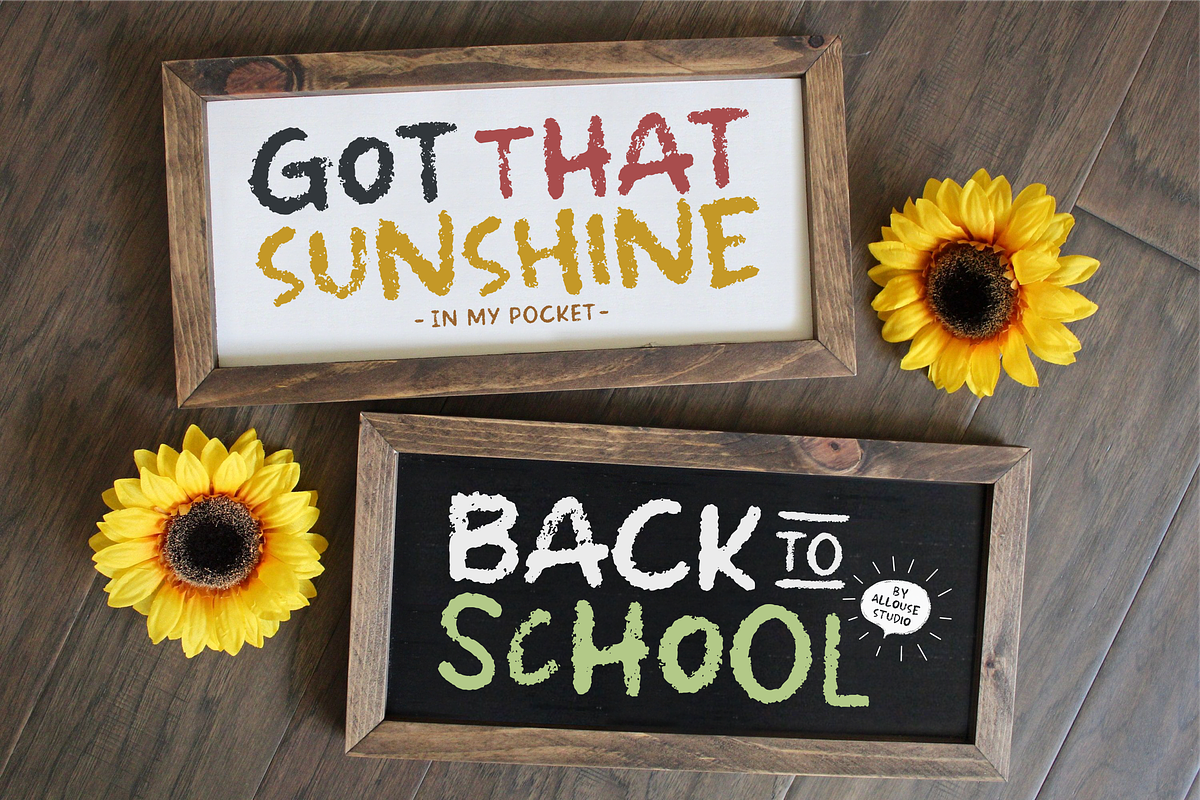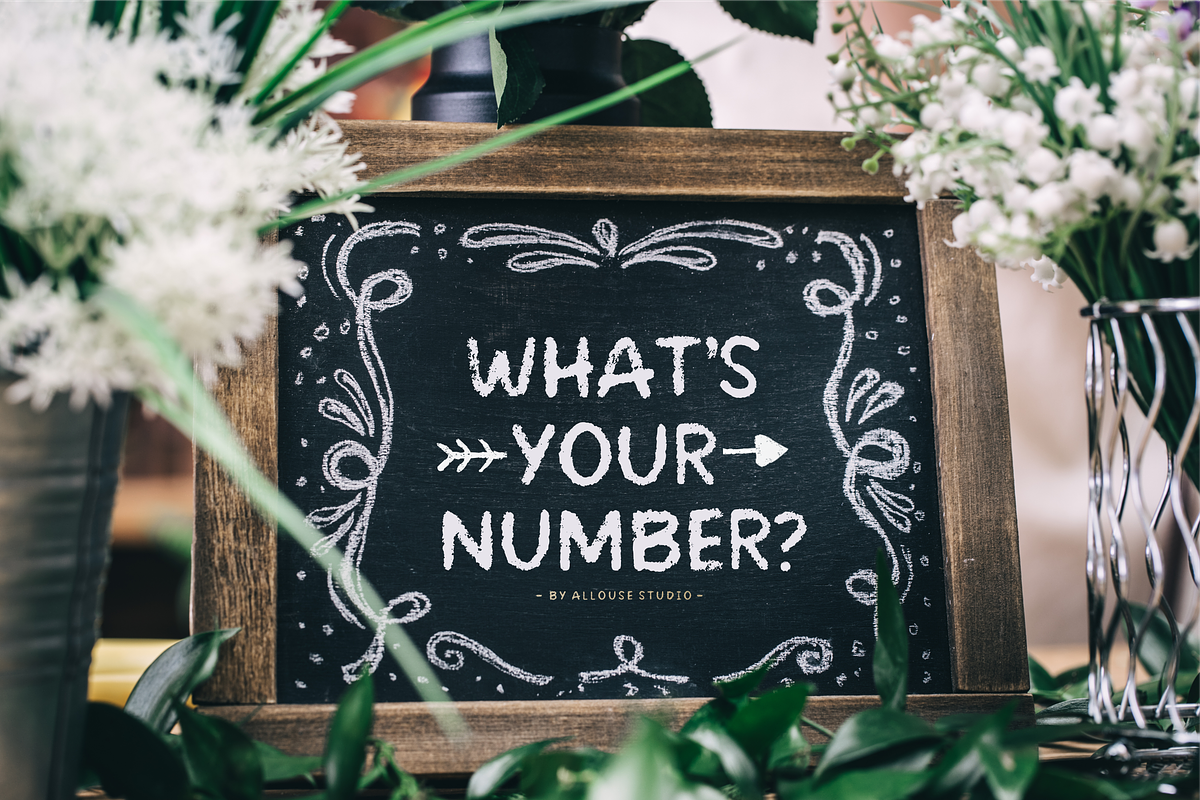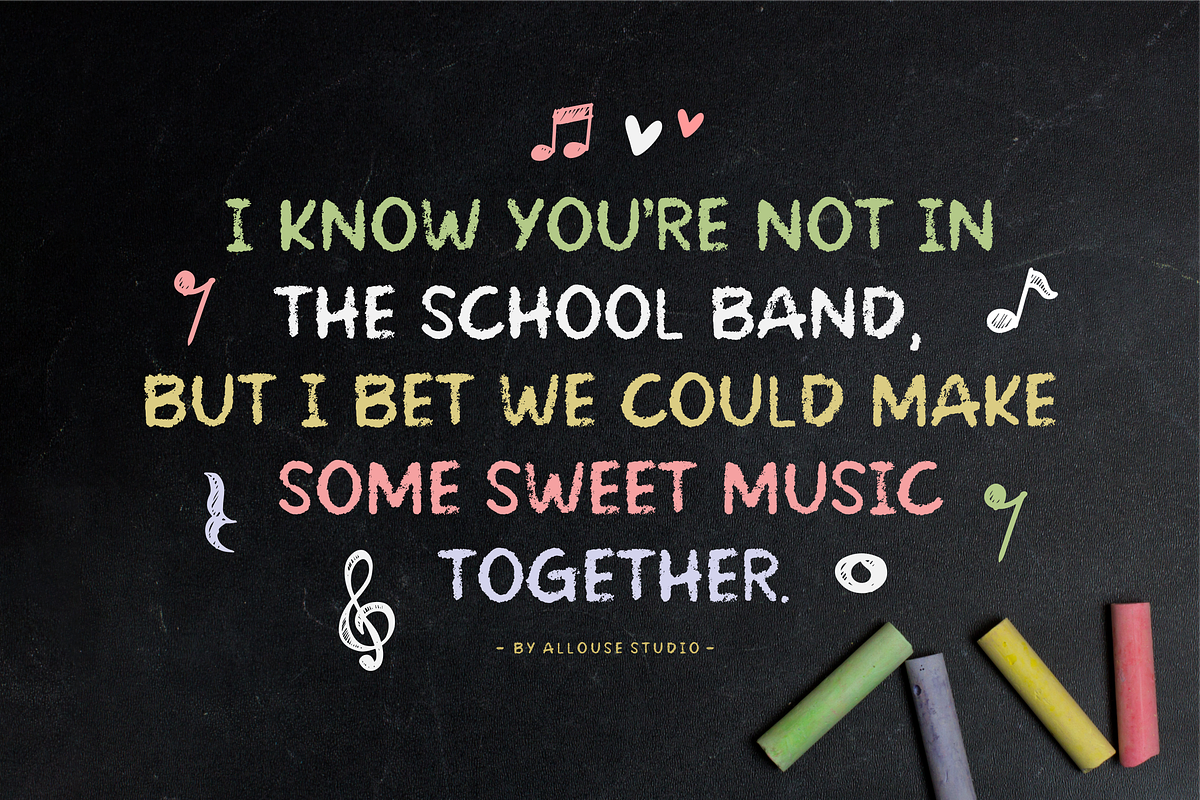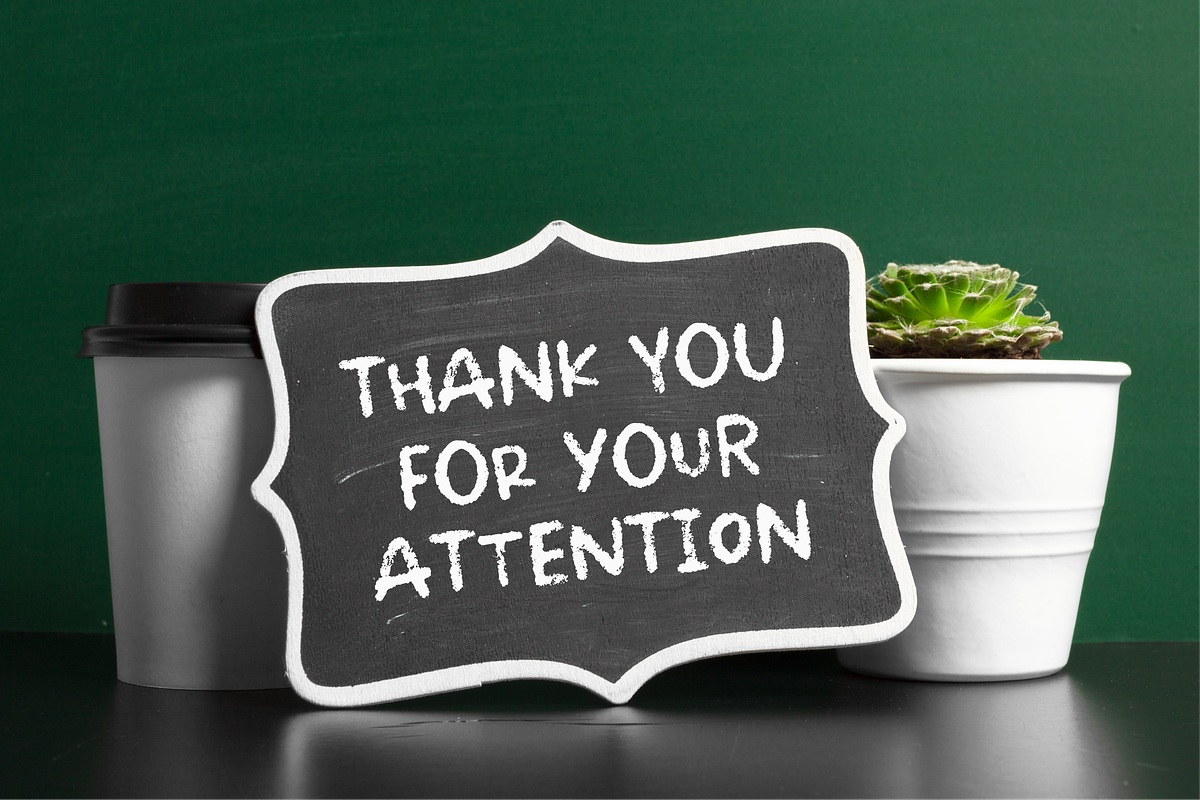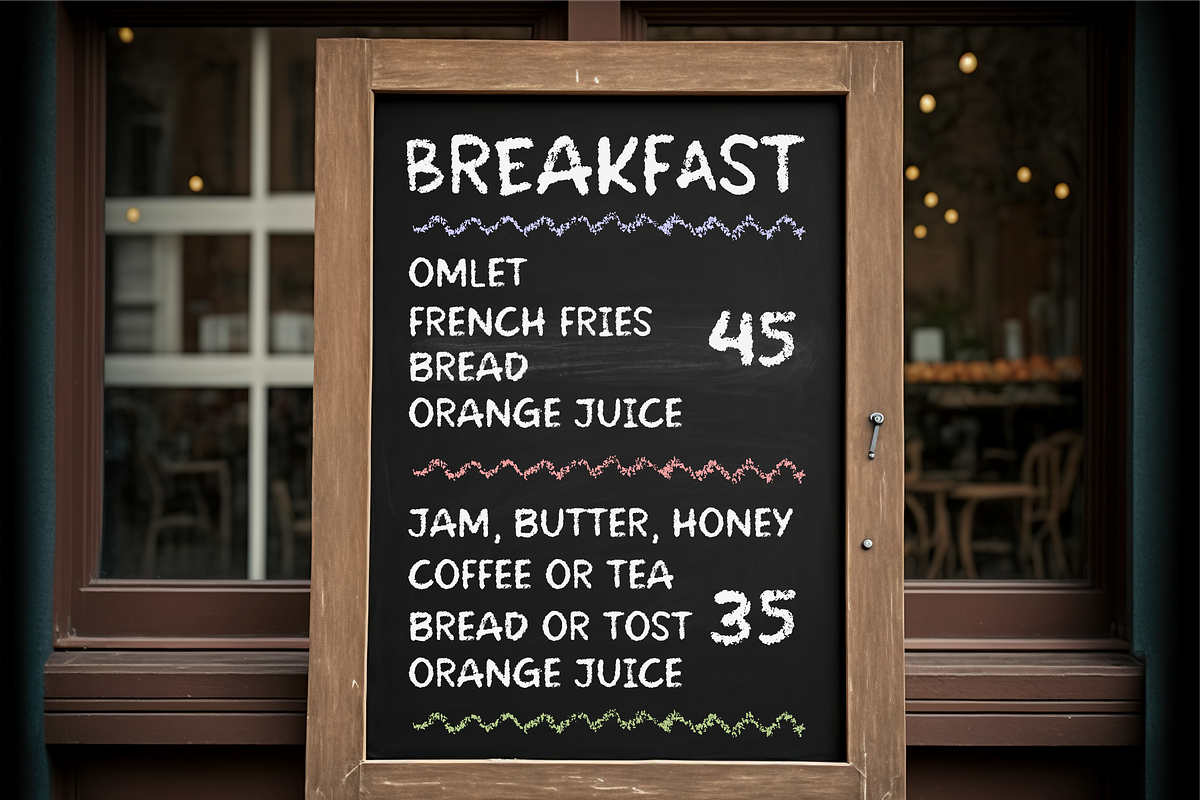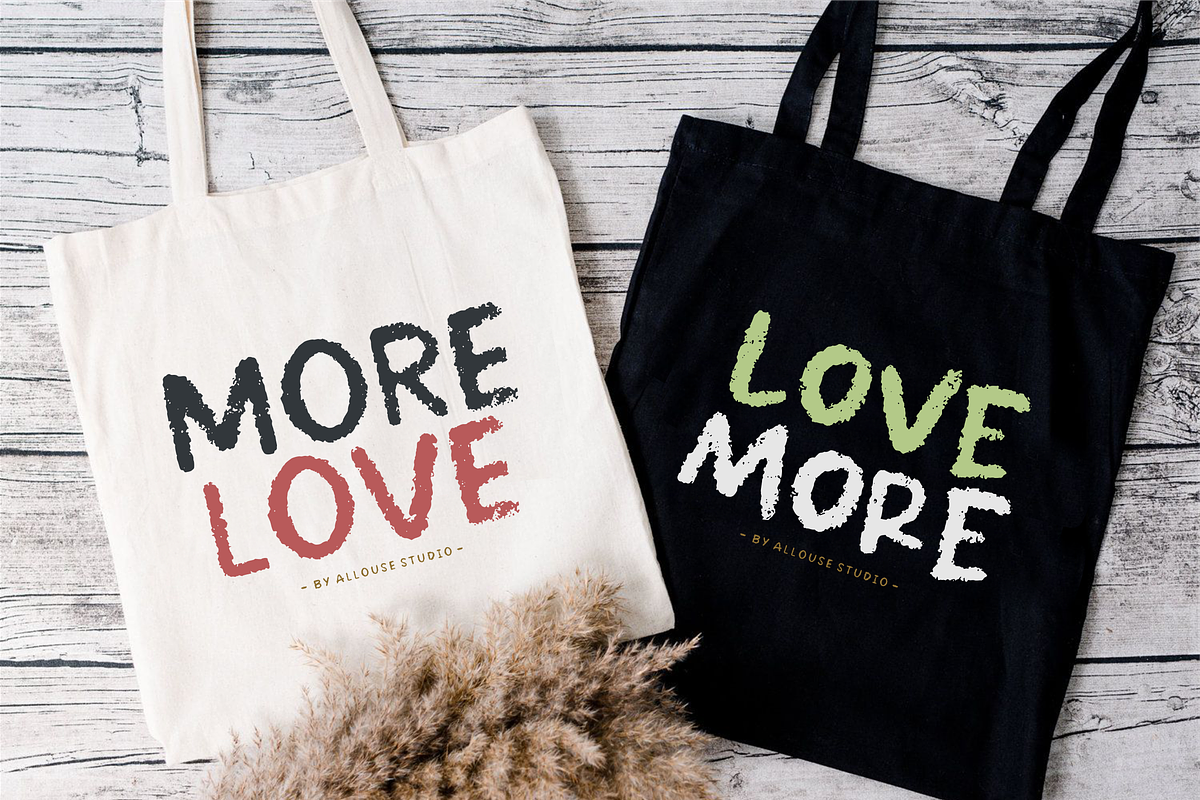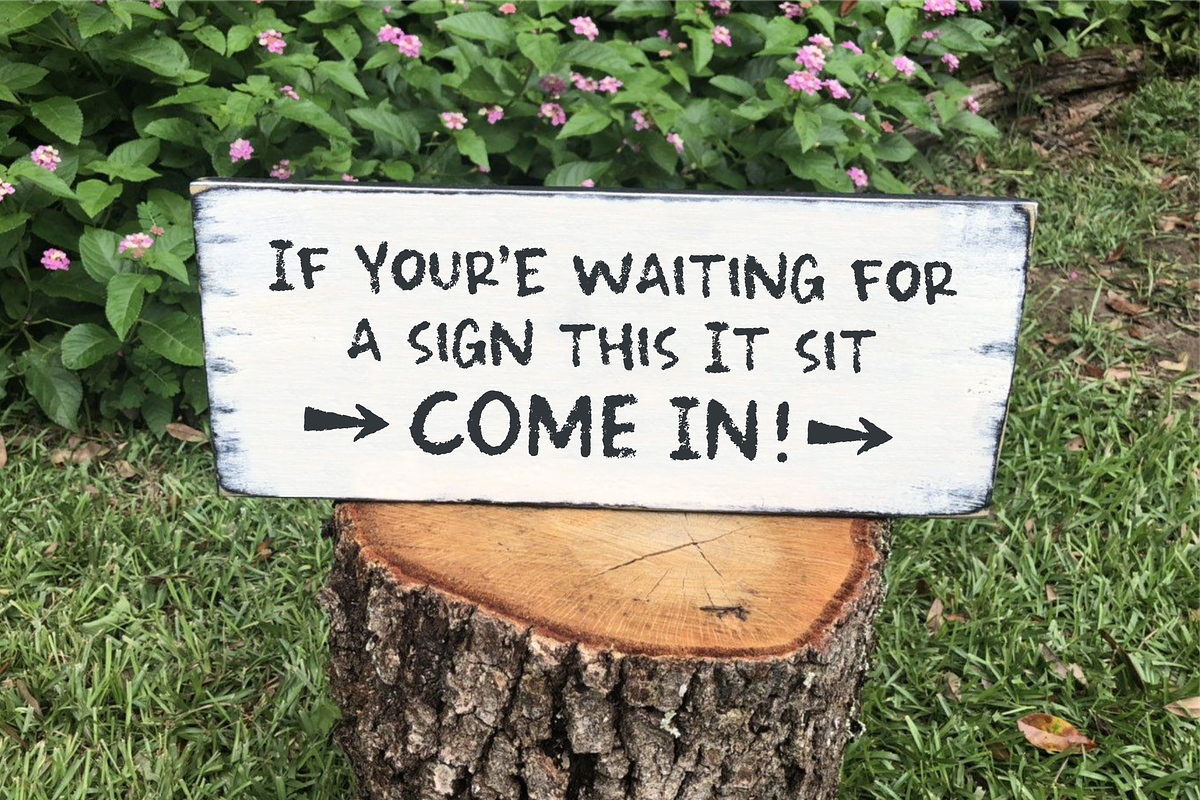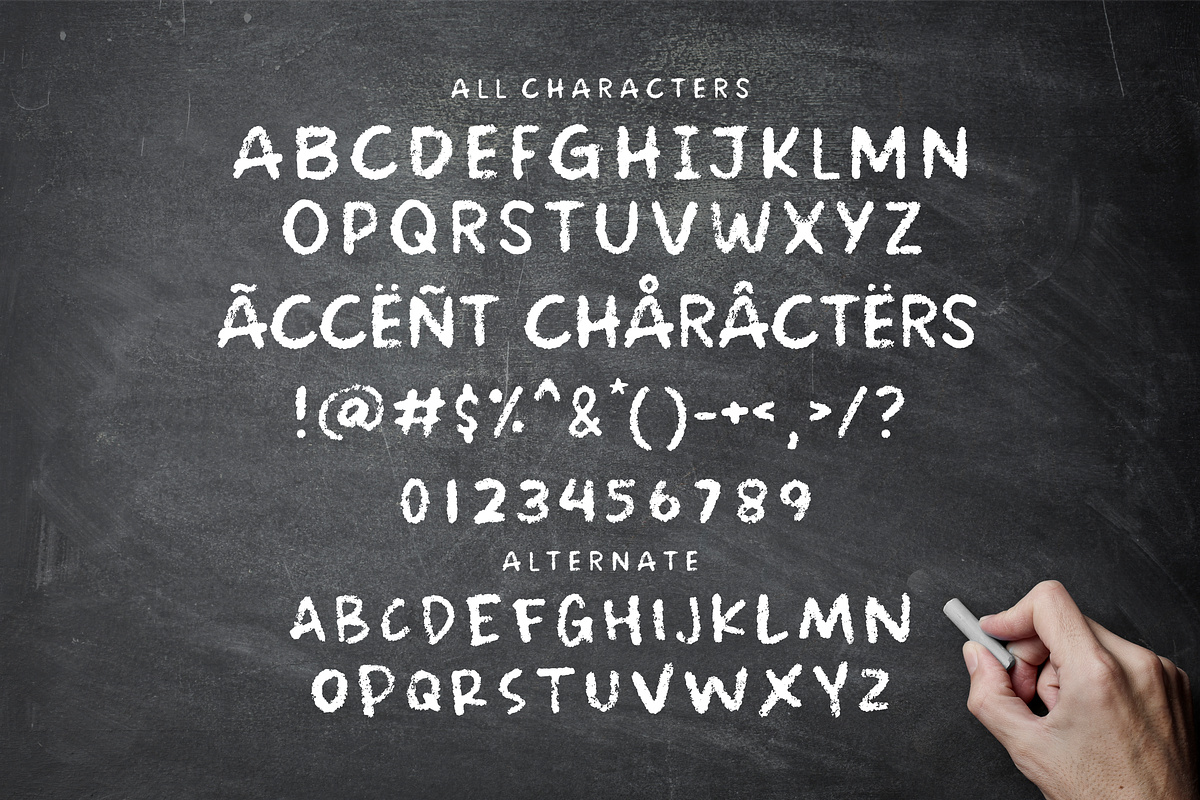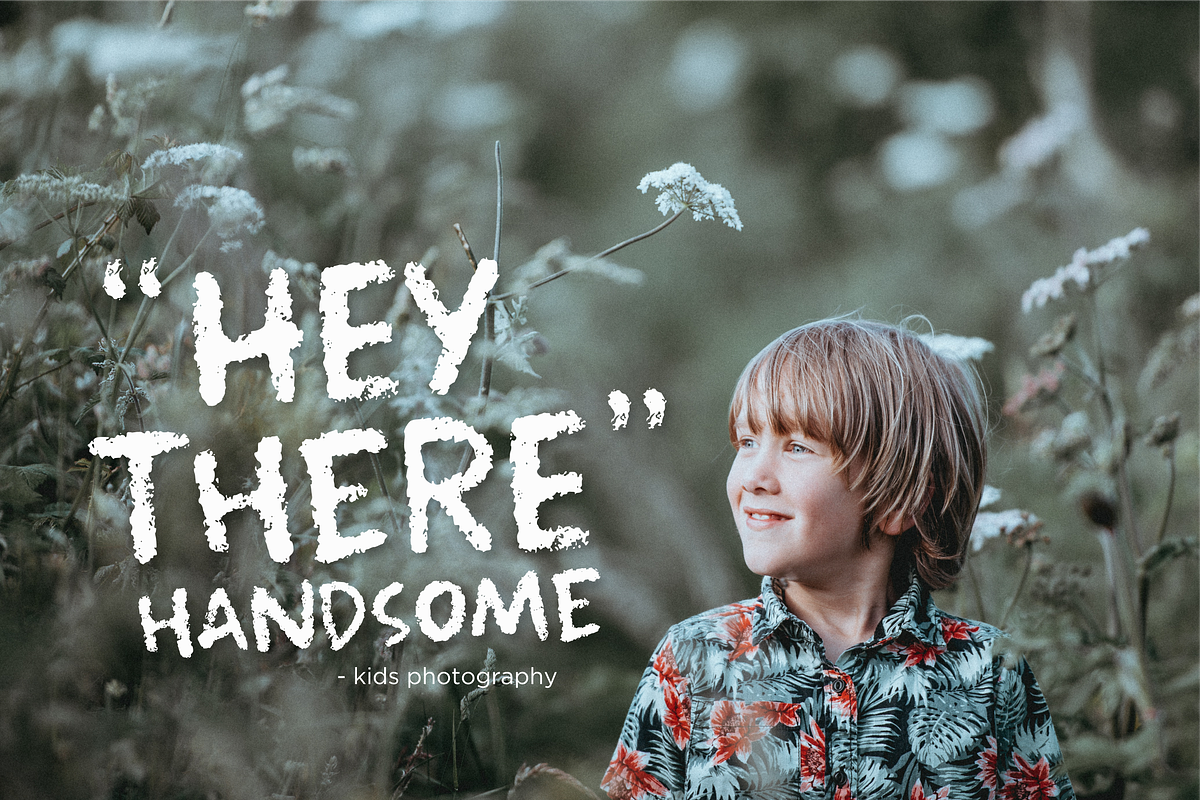
Creamy Chalk A Bold Chalk Font
Proudly Presenting, Creamy Chalk A Hand Drawn Bold Chalk Font.
Creamy Chalk is perfect for any titles, logo, product packaging, branding project, megazine, social media, wedding, or just used to express words above the background.
Creamy Chalk also come with Multi-Lingual Support.